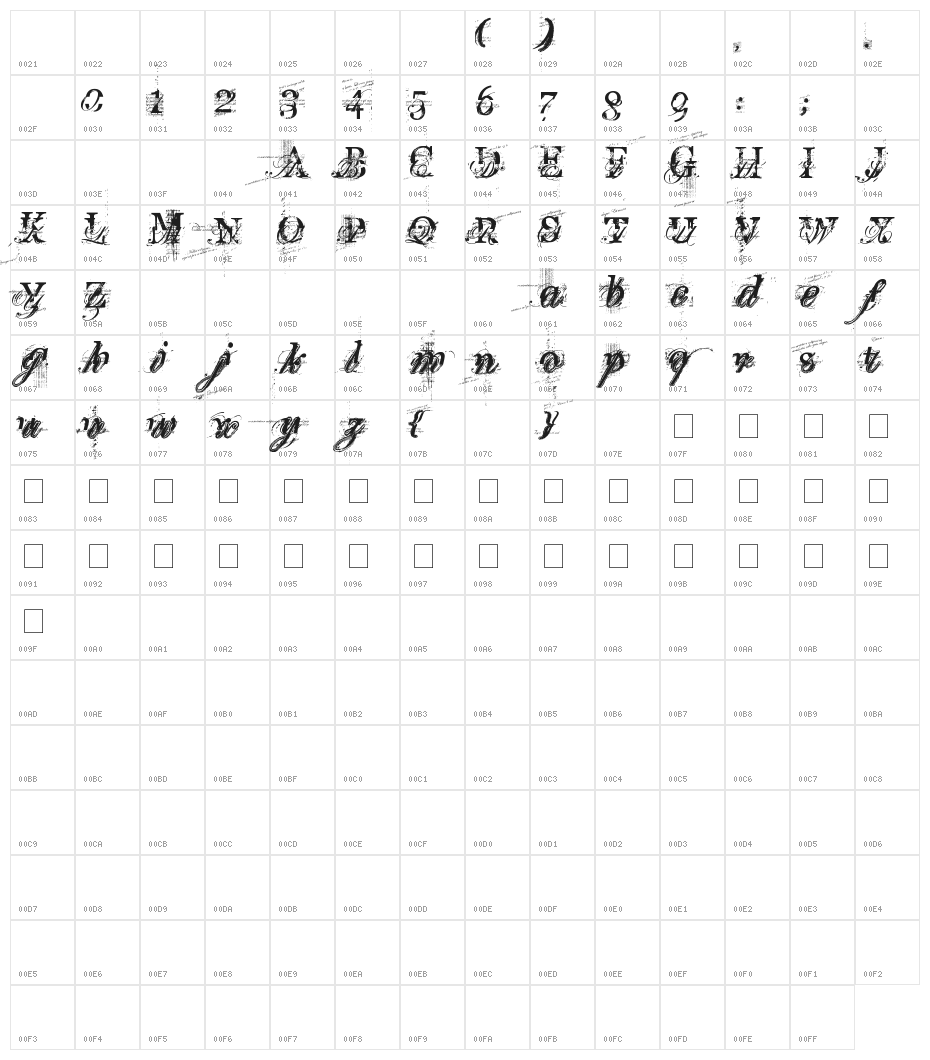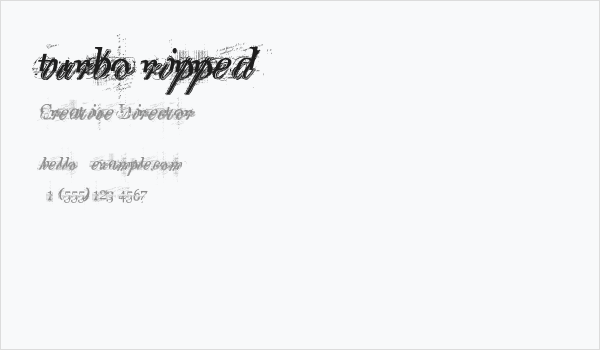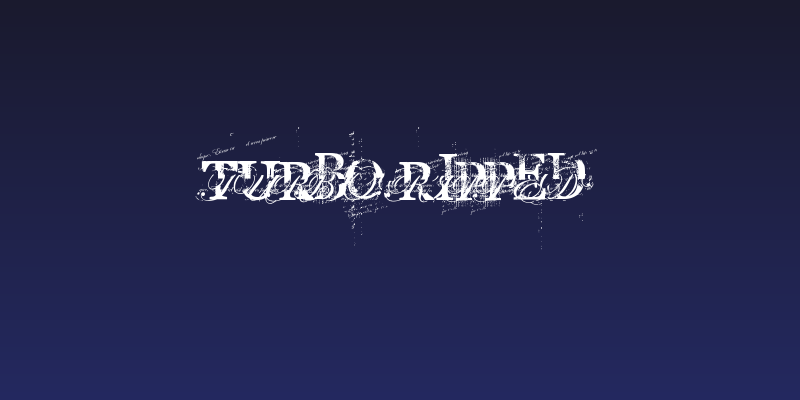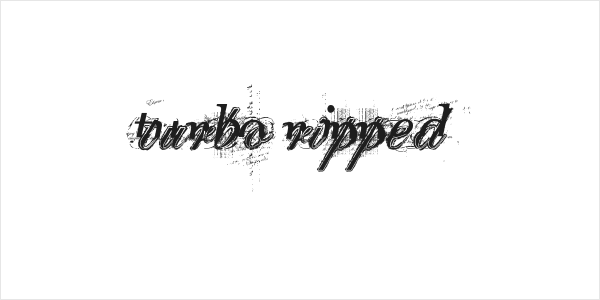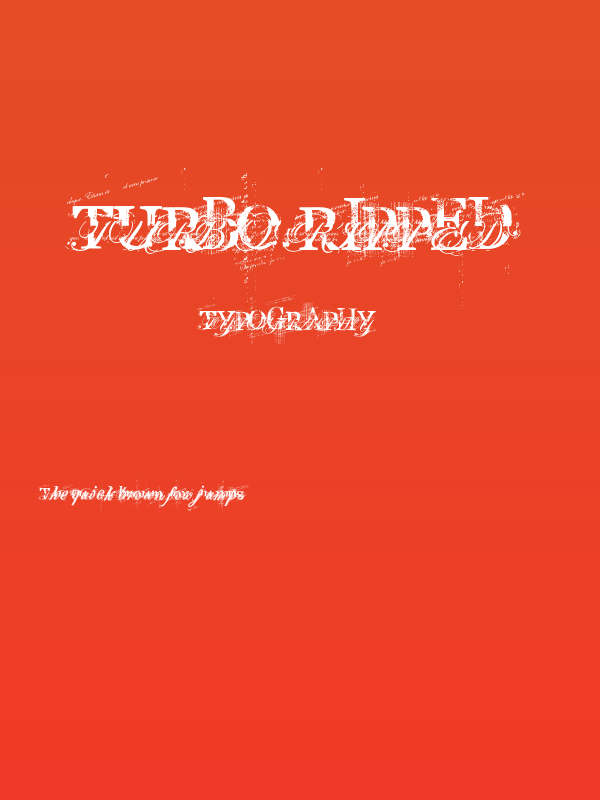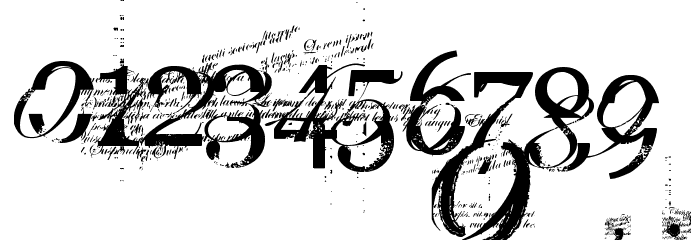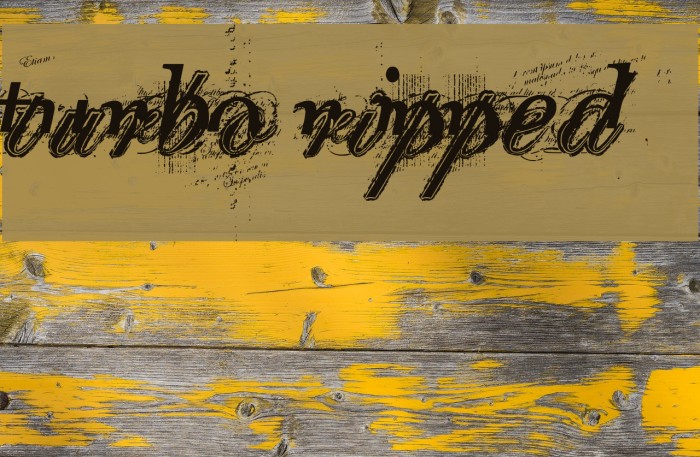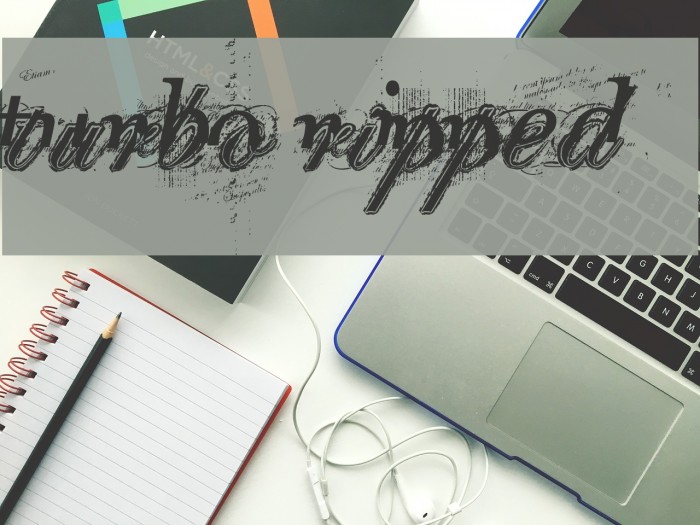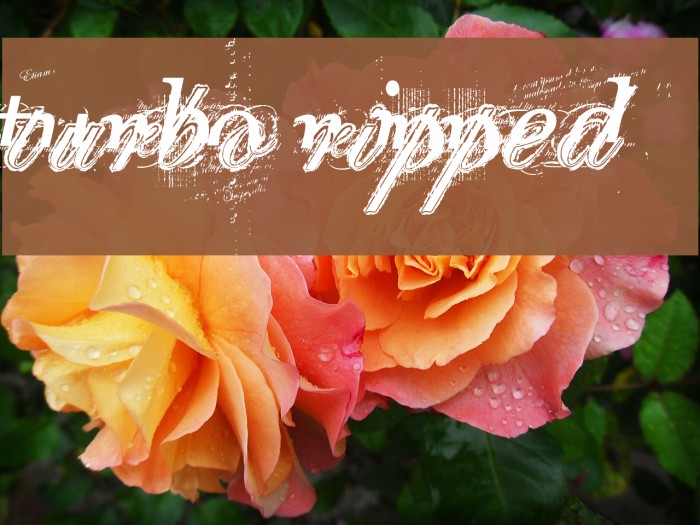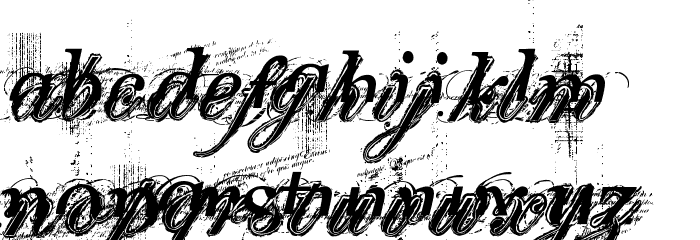
turbo ripped Font
✎ Distorted Eroded
turbo ripped Description
This font features a highly distressed and grungy aesthetic, with elements that appear torn or ripped, giving it a chaotic and edgy feel. The uppercase letters are bold and heavily textured, while the lowercase letters maintain a cursive style with similar distressing. Numbers and special characters follow the same theme, with irregular edges and a dynamic appearance. The overall look is reminiscent of urban street art or punk rock album covers, making it stand out with its unique and rebellious style.
| Categories | Distorted Eroded |
| Overall Style | Grunge, Urban, Punk |
| Use Case | Logos, Posters, Album Covers |
| Proposed Projects | Ideal for music album covers, streetwear branding, graffiti art projects, or any design requiring a bold, rebellious look. |